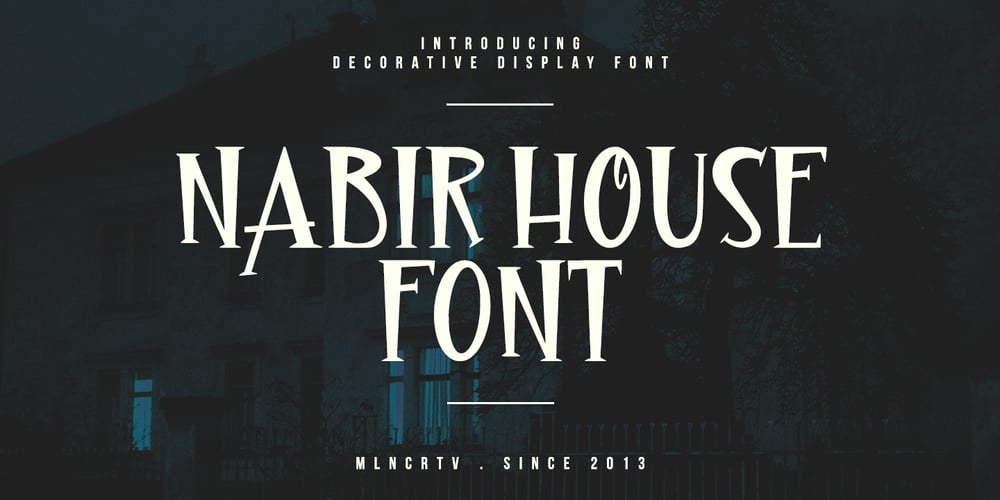
MC Nabir House
MC Nabir House font
MC Nabir House Font Family was designed by Gilang Maulana and published by Maulana Creative. MC Nabir House contains 1 styles and family package options. Nabir House is a vintage horror decorative display font. Bold stroke, fun character with a bit of ligatures and alternates. To give you an extra creative work. Nabir House font support multilingual more than 100+ language. This font is good for logo design, Social media, Movie Titles, Books Titles, a short text even a long text letter and good for your secondary text font with script or serif. Make a stunning work with Nabir House font.Cheers,Maulana Creative